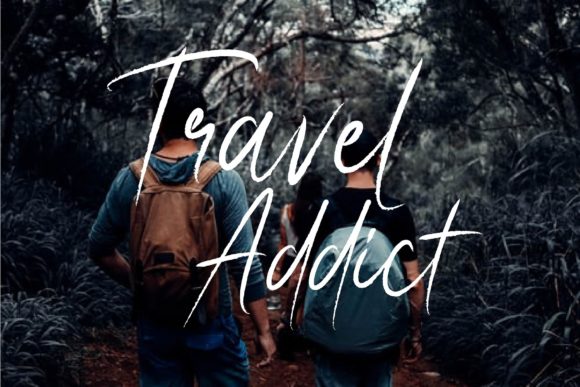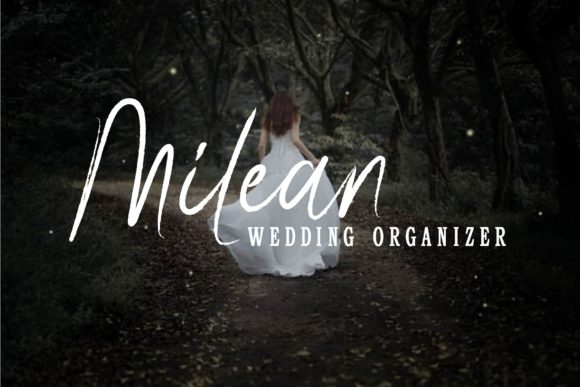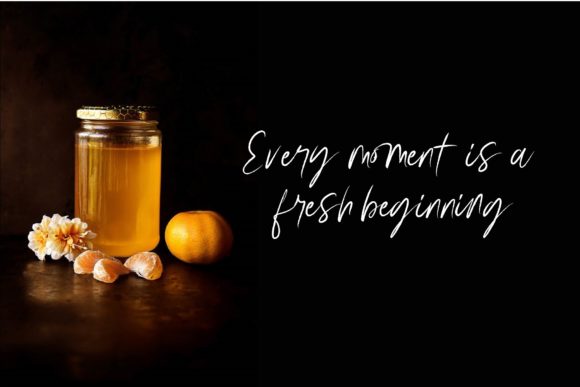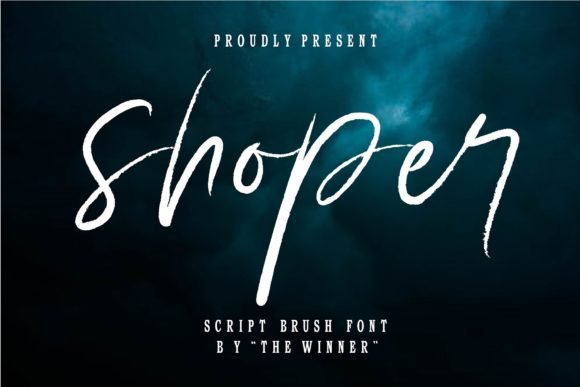
Introduction to Shoper Font
Shoper is a neat and perfect handwritten font.
It works great for branding, product packaging, invitations, quotes, t-shirts, labels, posters or any logo you want to develop .